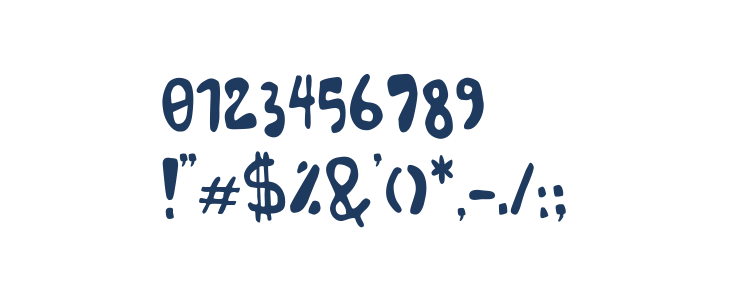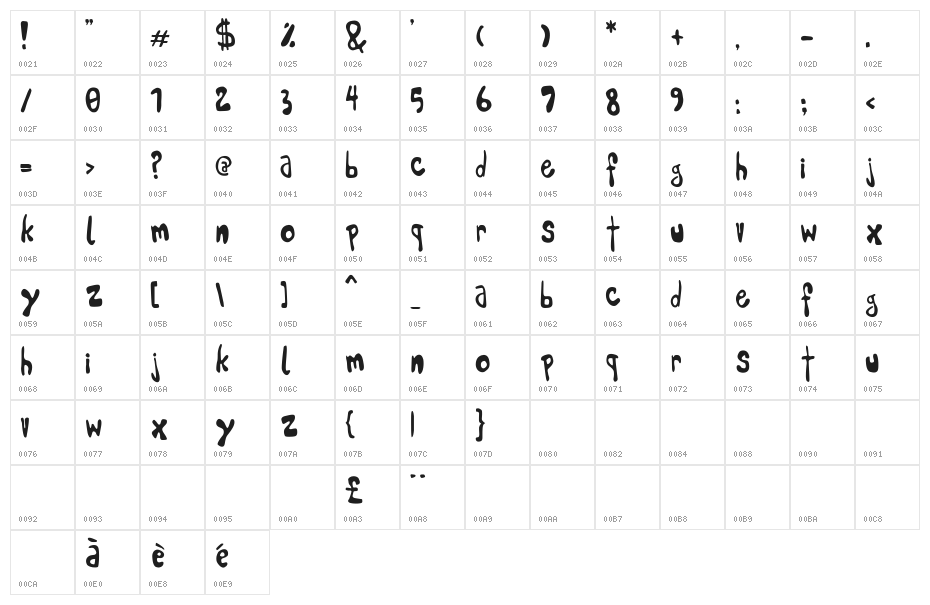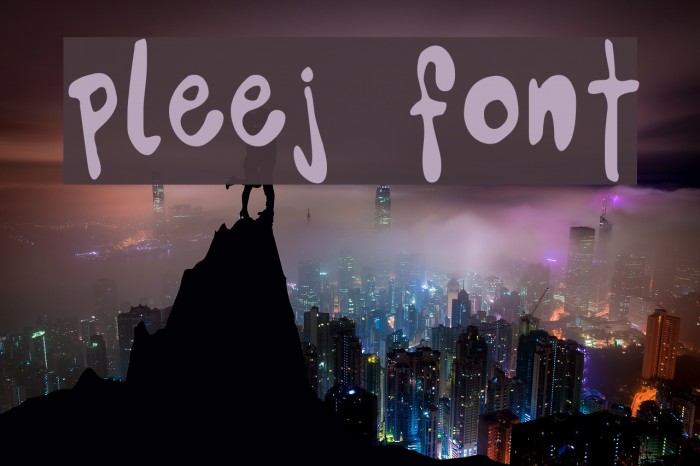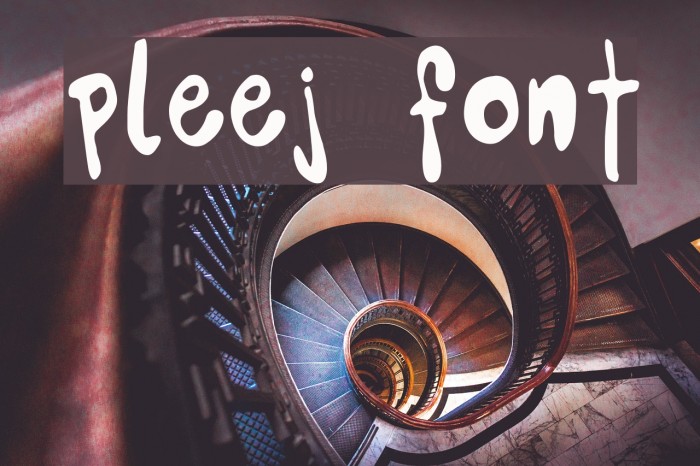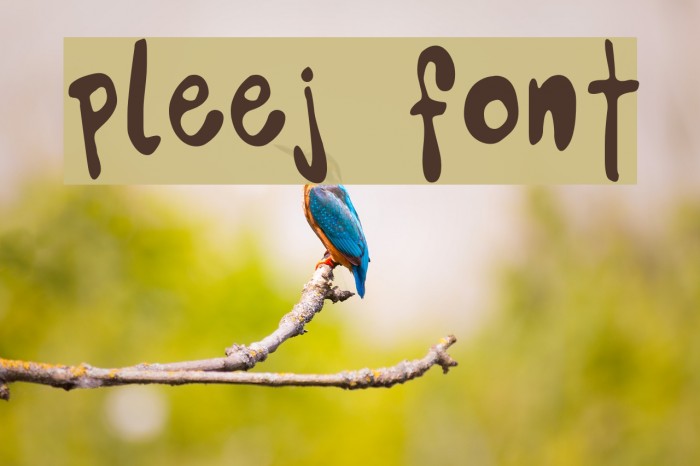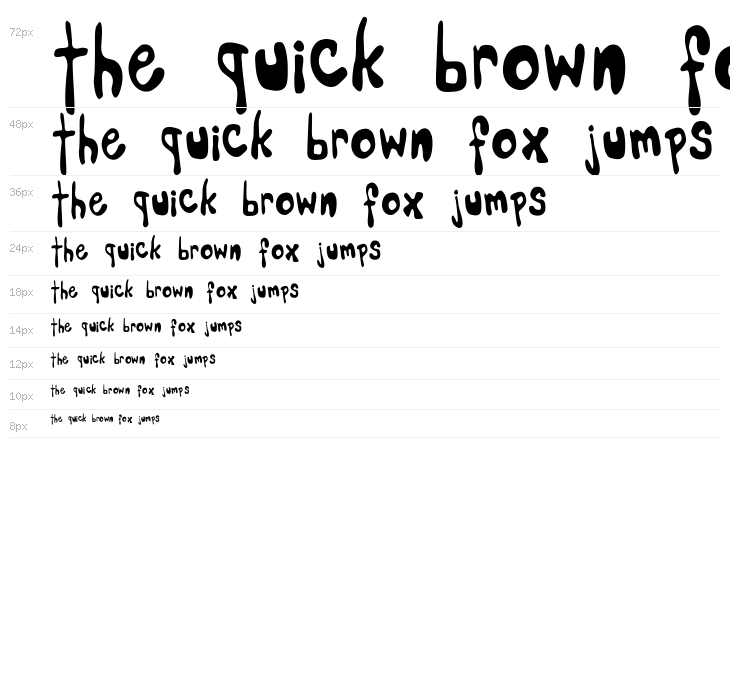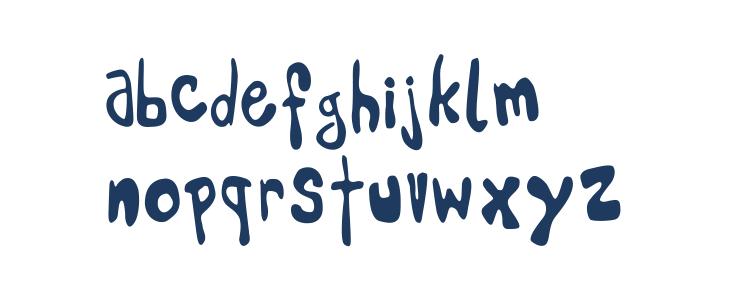
Pleej Font
Pleej Description
This playful and whimsical font features a bold and irregular design, with each character exhibiting a unique, hand-drawn style. The letters are rounded and slightly uneven, giving them a lively and informal appearance. The font includes both uppercase and lowercase letters, numbers, and a variety of special characters. Its thick strokes and exaggerated curves make it highly legible and eye-catching, ideal for creative projects that require a fun and approachable aesthetic.
| Proposed Projects | Perfect for children's books, playful branding, party invitations, and creative posters. |